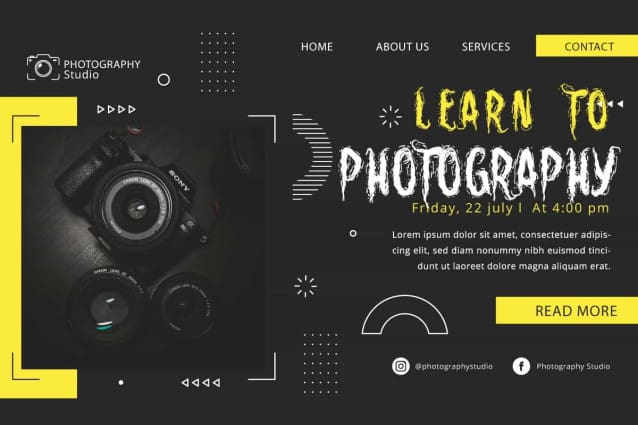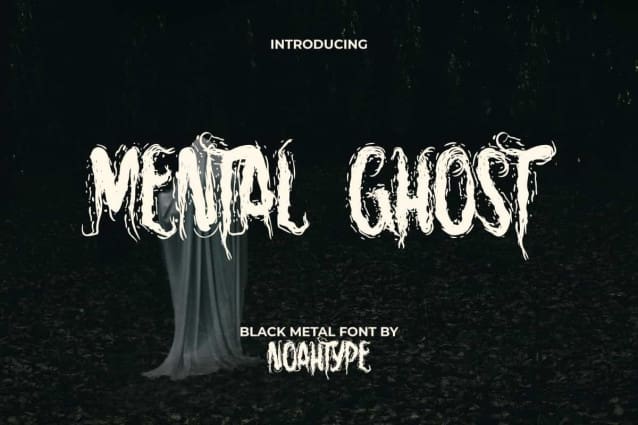
Mental Ghost Font
Mental Ghost Font is a terrifying hardcore metal horror display font by NoahType. This font carries a black metal concept which has its own characteristics and can give you goosebumps. It will be perfect for any designs, such as brand image, cover, custom design, invitation, label, marketing material, menu, poster, product packaging, quote, signage, stationery, web, and many more!
Mental Ghost Font includes full set of ALL CAPS for Uppercase and Lowercase Basic Characters, Numerals, Punctuation, and Symbol. The characters of this font will give amazing touch and also a perfect choice for many industries, such as accessories, advertising, art, café, event or festival, fashion, game, movie, music, photography, printing, publishing, sport, etc.